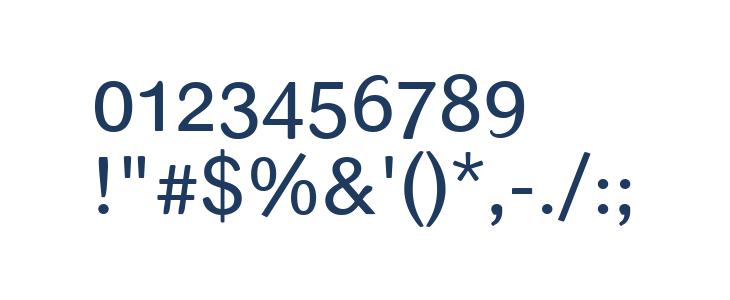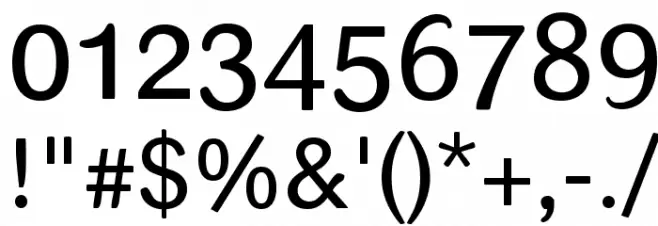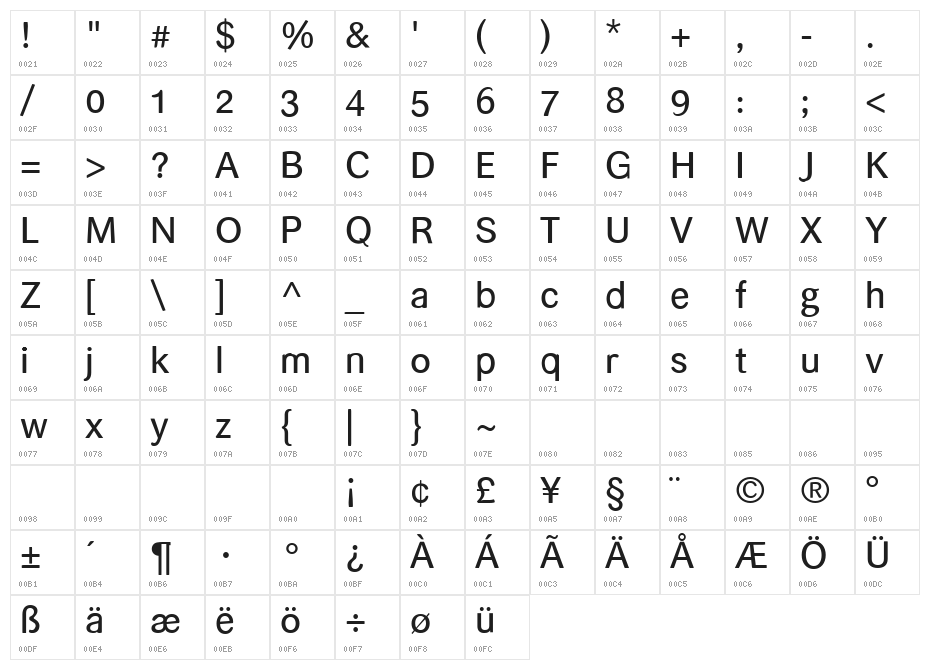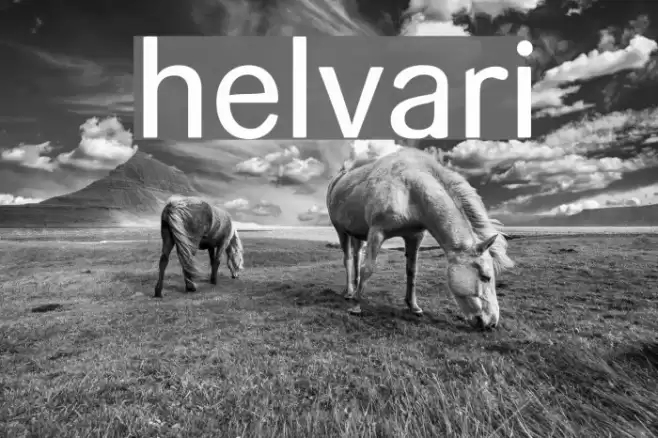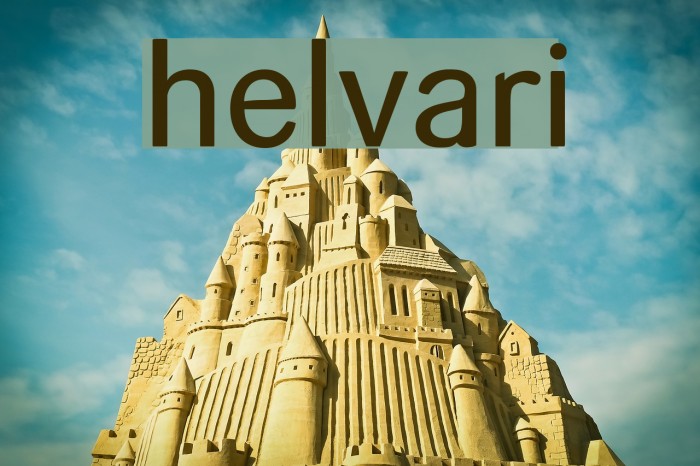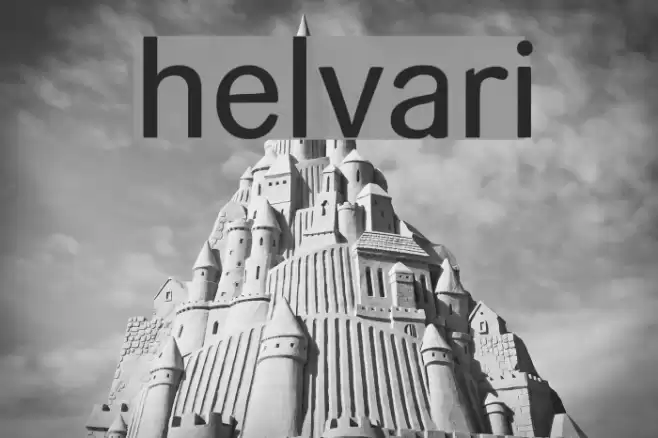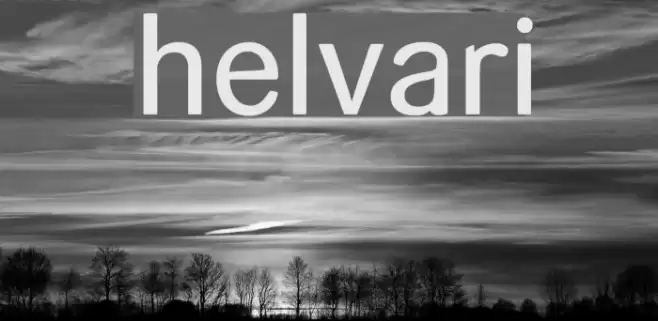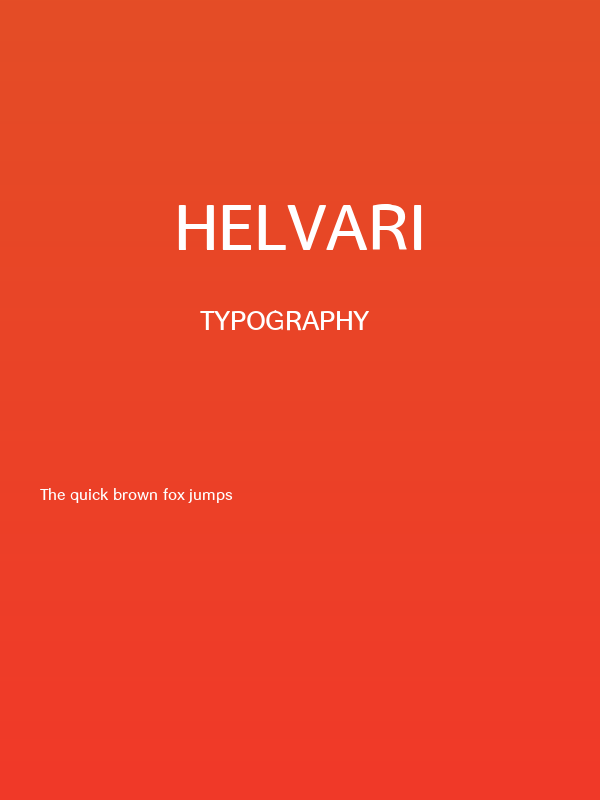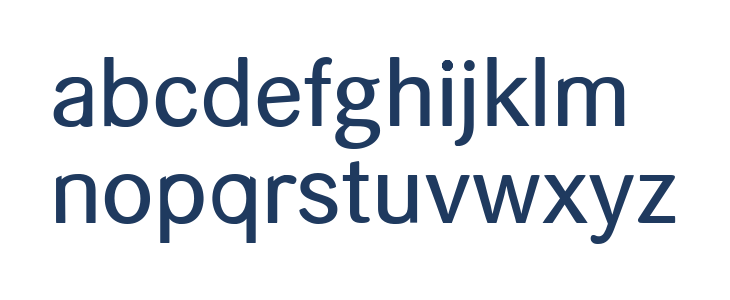
helvari Font
helvari Description
This font is a clean and modern sans-serif typeface characterized by its simplicity and readability. The letters are evenly spaced with a consistent stroke width, making it highly legible across various sizes. The design is minimalistic, with smooth curves and straight lines that give it a contemporary feel. The uppercase letters are bold and assertive, while the lowercase letters maintain a friendly and approachable appearance. The numerals are clear and distinct, ensuring easy readability. The special characters are well-integrated, maintaining the overall aesthetic of the font.
| Proposed Projects | Ideal for digital interfaces, corporate branding, advertising, and editorial design. |